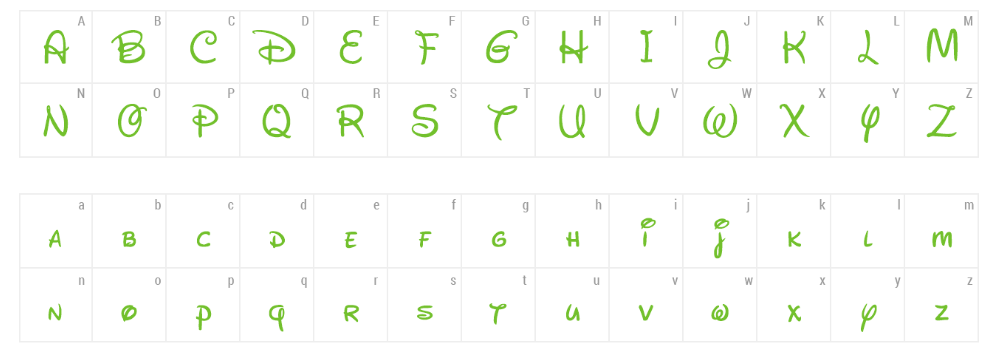
New Waltograph font is a modernization of one of the most popular fan-made typeface in the sphere of Disney-like design. The fun, looping fonts, more commonly known as Waltograph fonts, are whimsically reminiscent of the famous Disney logotype, and they are one of the most popular tools among crafters, designers, and those interested in the Disney logotype, in general. The Disney font Waltograph isn’t an official font of the company but rather a creative tribute to the same type of wizard-like nostalgic vibe that can be applied to party invitations, handmade decorations, YouTube channel thumbnails, and so on.Â
This font is ideal for themed merchandise, invitations, or even social media graphics where you want to add fairy-tale magic and charm. This article focuses on the history of the font, its features, applications, and and how to download it.
What is New Waltograph Font?
The New Waltograph Font is an updated rendition of the well-known Waltograph which is in itself a fan-made version of Disney’s logo typeface. This Disney inspired typeface is loved by many artistic and creative people because it imitates the versatile hand movements and imaginative strokes of Walt Disney’s signature style.
The New Waltograph Script Font is different from regular script fonts because its letter forms attempt to strike a balance between the classic Disney branding and higher clarity with rounder strokes. It may not be officially recognized as a Disney font, but it is undoubtedly one of the most used ones associated with the legacy of the brand.
Key Features of New Waltograph Font
The New Waltograph Font is distinguished by several unique characteristics that set it apart from other script fonts:
- Playful Curves & Elegant Script – The font mirrors the iconic Disney handwriting style with fluid, looping strokes.
- Magical Feel – The whimsical letterforms bring a touch of nostalgia and fantasy, making it ideal for Disney-themed projects.
- Multiple Weights & Ligatures – Some variations offer different styles, including bold and italic versions for more design flexibility.
- Enhanced Readability – Unlike the original Waltograph, the new version offers smoother letter connections for improved legibility.
- Versatile Usage – Ideal for both digital and print projects, from branding to social media graphics.
Applications of New Waltograph Font
The New Waltograph Font is widely used in various creative projects, including:
- Disney-Themed Party Invitations – Perfect for birthdays, baby showers, and special events with a magical theme.
- Logos, Branding & Merchandise Design – Frequently used by independent designers creating Disney-inspired logos, clothing, and memorabilia.
- Social Media Graphics & Digital Content – Popular among content creators designing YouTube thumbnails, Instagram posts, and banners.
- Children’s Books & Storytelling Projects – Brings an enchanting feel to books, posters, and educational materials.
- YouTube & Video Titles – Used by Disney vloggers and themed entertainment channels for branding and engagement.
Alternatives to New Waltograph Font
Conclusion: New Waltograph Font
The New Waltograph Font is ideal for designers and Disney enthusiasts. Among its myriad uses it remains the default font for themed projects because of its magical appeal. With this typeface, nostalgia and fun are guaranteed in the designs for invitations, social media graphics, merchandise, and more because it brings a whimsical edge.